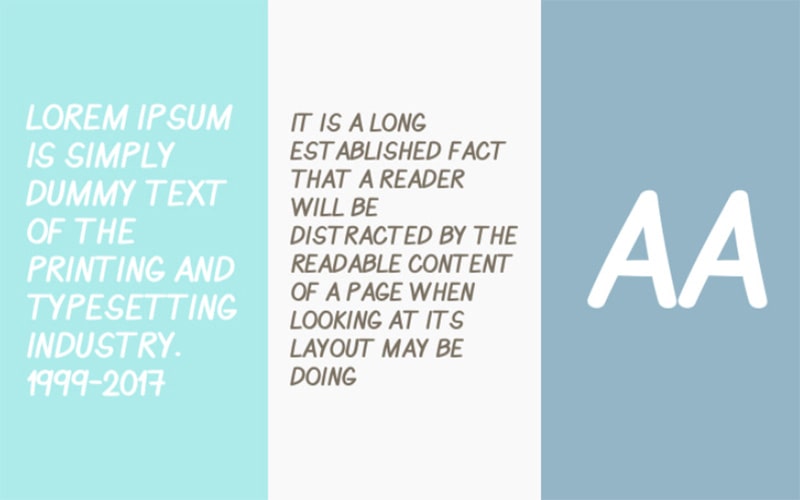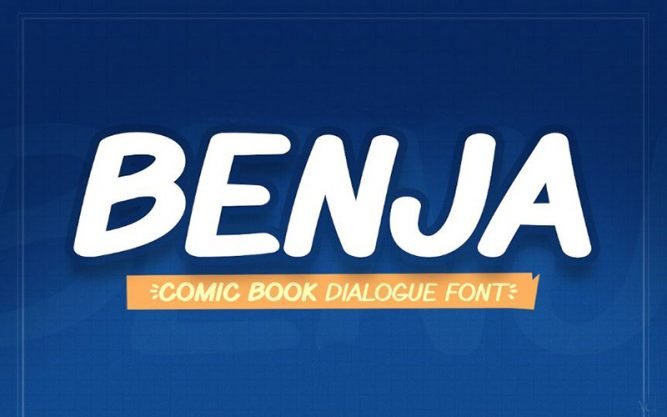
Today we introducing another well-known font family called Benja Comic Font. This is a display and comic typeface. This text font is originally designed and launched by DonMarciano.
This comic font was made with love and care, which has come in two styles. This font is basically a design, which is originally designed for webcomic series that provide a dynamic flow to your text.
You can use this awesome font for different works such as helping to create a comic dialogue, crafting emblems, movie posters, animated movie titles, printing or fabrics, and labeling, and best for kids’ comic books.
Benja Comic Font
The designer has put a unique touch in every letter to make it more beautiful and unique. It has tried to incorporate a unique touch into its structure that makes it unique.
Initially, it was created solely for cartoon-related design and deployment for game development purposes. This stunning font is best for various projects of clean, attractive, high proportions, and extremely clean type fast designing.